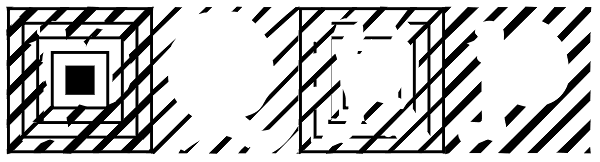
XPawnShop
XPawnShop is a typographical chess font; the pieces are letters. The Pawn is an awkward letter P, the knight is a horse in the shape of an h, the bishop is a decorative letter B, the rook is an elephant with an R shape, the queen is a Q, and the...